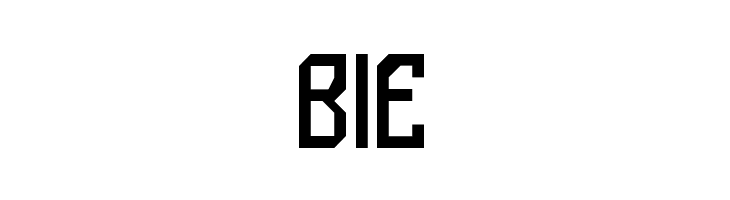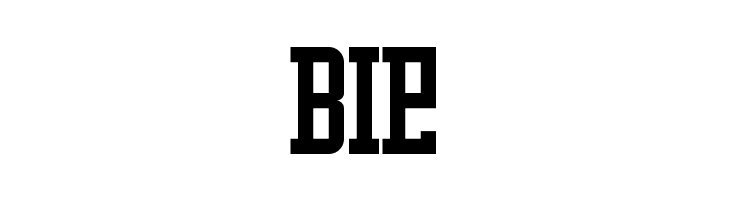
A raw, hand-drawn font with playful and artistic characteristics.
A modern, double-outline font with rounded, smooth characters.
A bold, spiky font with a rugged, thorn-like texture.
An ornate and decorative script font with elaborate swashes and flowing characters.
An ornate and decorative script font with elegant curves and flourishes.
A bold, geometric font with a modern and edgy style.
A bold, structured font with block-like serifs and a vintage industrial feel.
A bold, playful font with a three-dimensional outline and rounded, irregular characters.